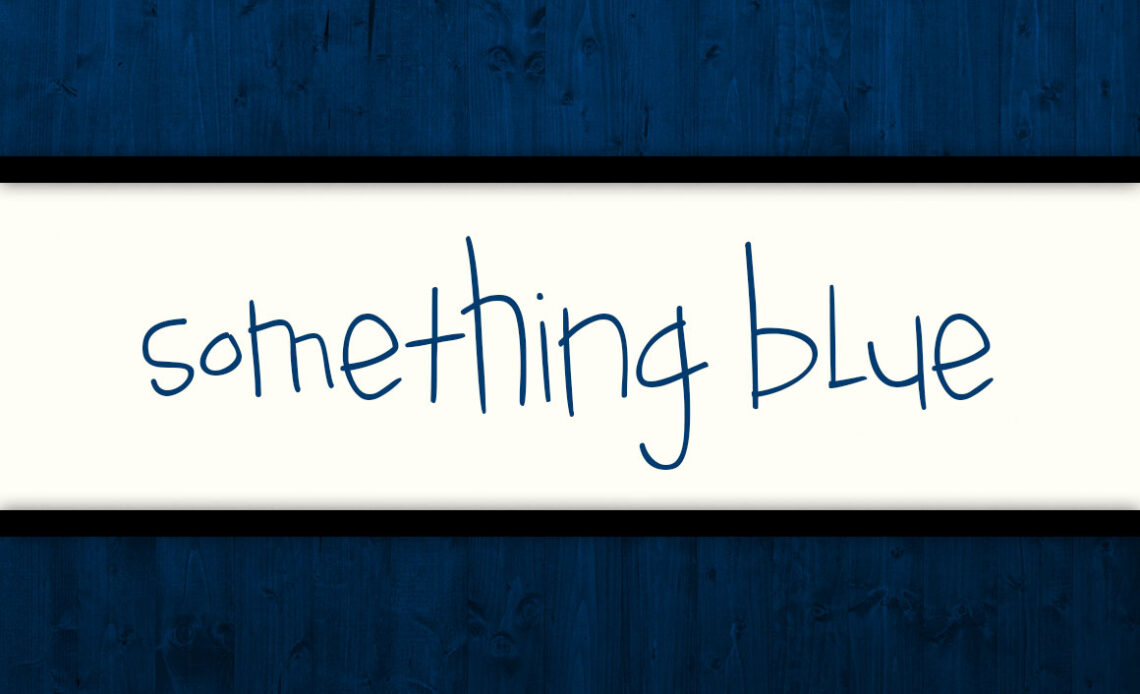
Something Blue Font
Download the delightful Something Blue font and let your creativity flow! This quirky yet legible handwritten script is a breath of fresh air, designed to add a touch of whimsy to your next project.
Perfect for handmade cards and invitations, Something Blue will bring a unique charm to your creations. Its playful style is sure to captivate your audience, making your designs unforgettable.
Indulge in the endless possibilities of this charming font. Its unique character will add a special touch to your projects, whether you're crafting a heartfelt letter or designing a whimsical poster.
Unleash your inner artist with Something Blue! Its versatility and playful spirit will inspire you to create designs that are both eye-catching and endearing.